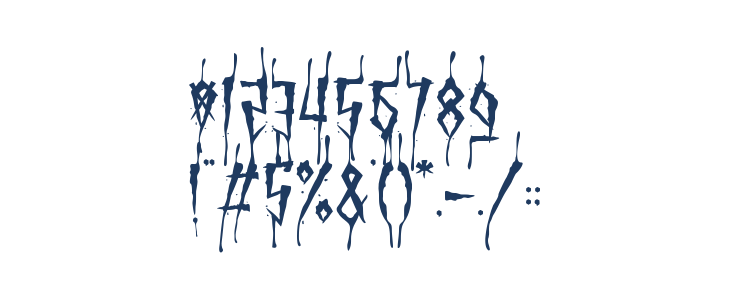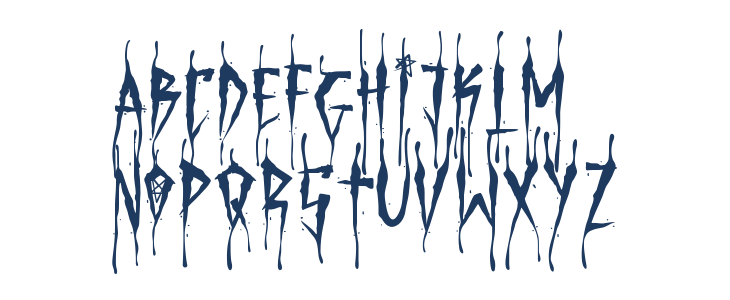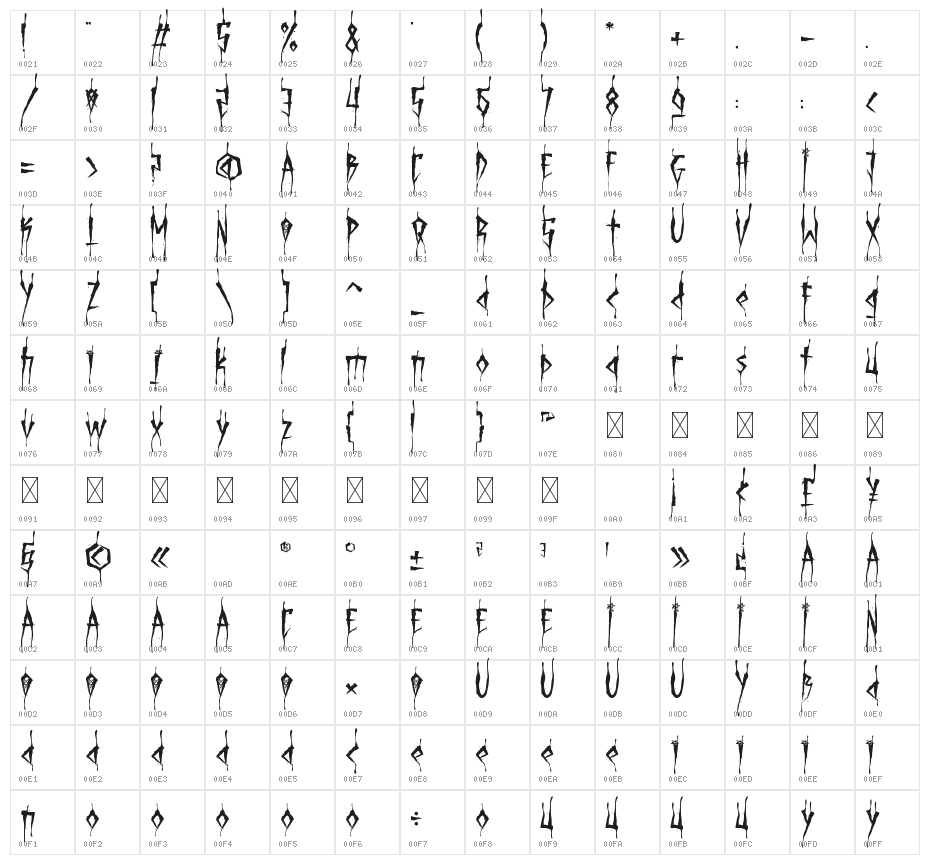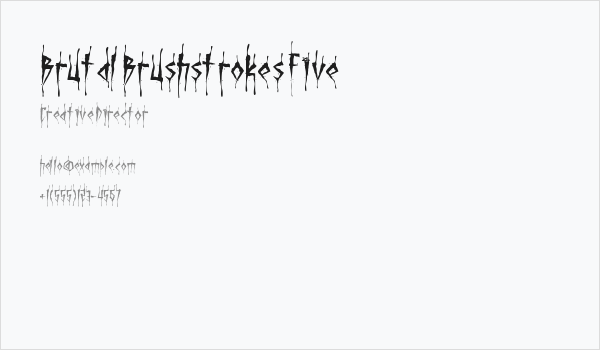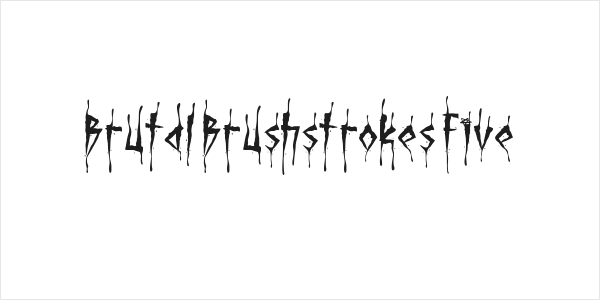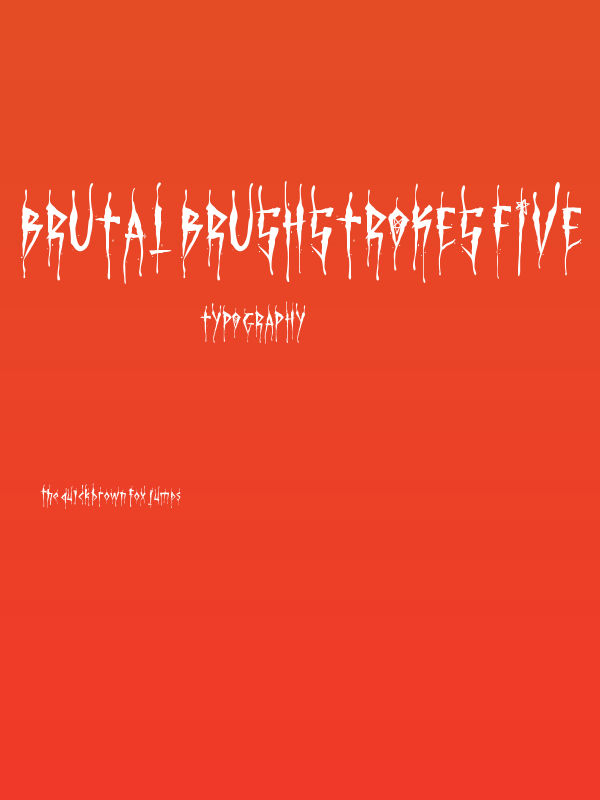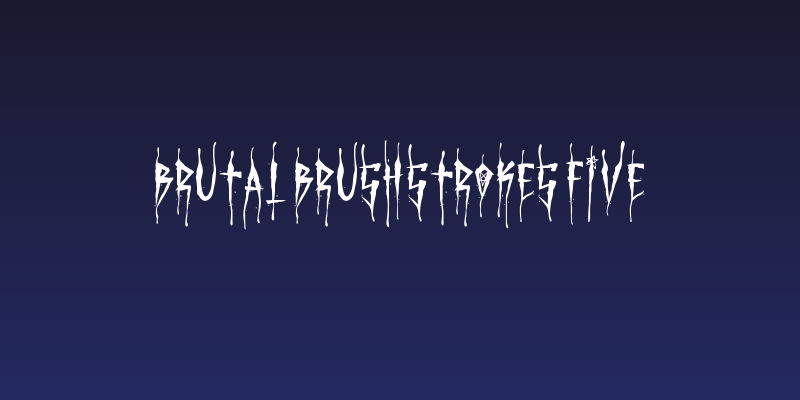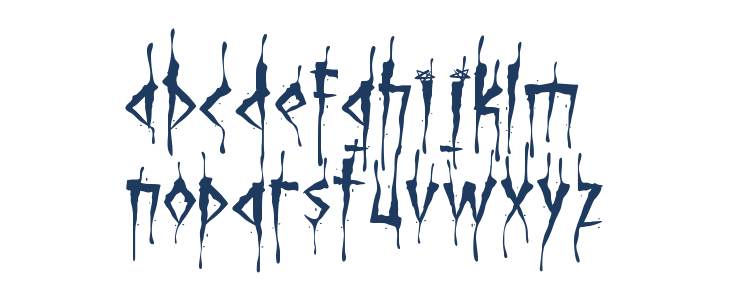
Brutal Brushstrokes Five Font
Brutal Brushstrokes Five Description
A highly expressive, hand-drawn typeface with elongated vertical strokes, splattered ink effects, and irregular brushwork, evoking a raw, chaotic, and artistic appearance.
| Overall Style | Decorative, Grunge, Artistic |
| Use Case | Headlines, Posters, Logos, Artistic projects |
| Proposed Projects | Album covers, horror movie posters, alternative event flyers, edgy branding, artistic zines. |